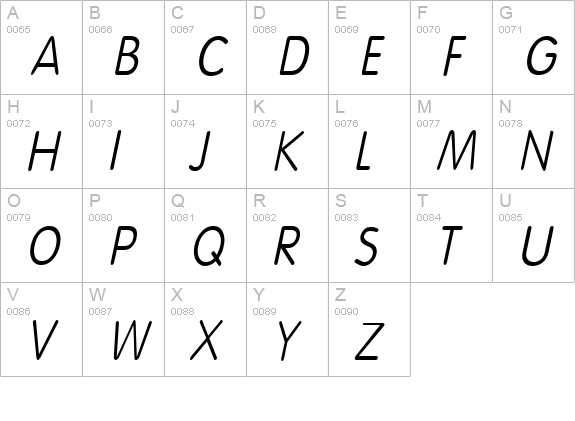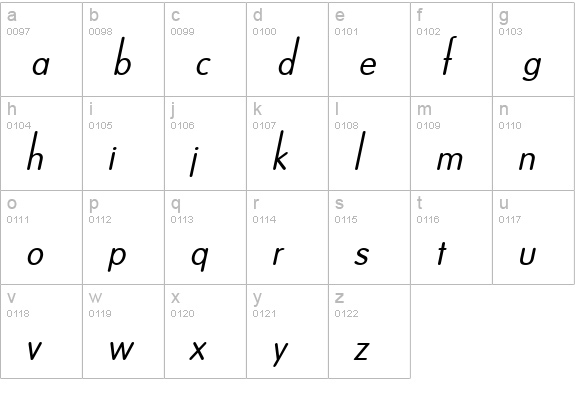
Dreamspeak Italic Font Details
Dreamspeak Italic is a distinctive, italic variant in the Dreamspeak typeface family \xE2\x80\x94 well suited to design and typography projects.
Dreamspeak Italic font is a modern and elegant typeface that exudes sophistication and creativity. With its sleek and stylish design, this font is perfect for adding a touch of class to any project. The italicized letters flow effortlessly, creating a sense of movement and grace on the page. What sets Dreamspeak Italic font apart is not only its beauty, but also its versatility. Whether you're designing a logo, creating a poster, or crafting a website, this font will elevate your work to the next level. Its timeless appeal makes it suitable for a wide range of applications, from branding to editorial design. The best part? Dreamspeak Italic font is completely free to download at FontsMarket.com. So go ahead and enhance your projects with this stunning font today!